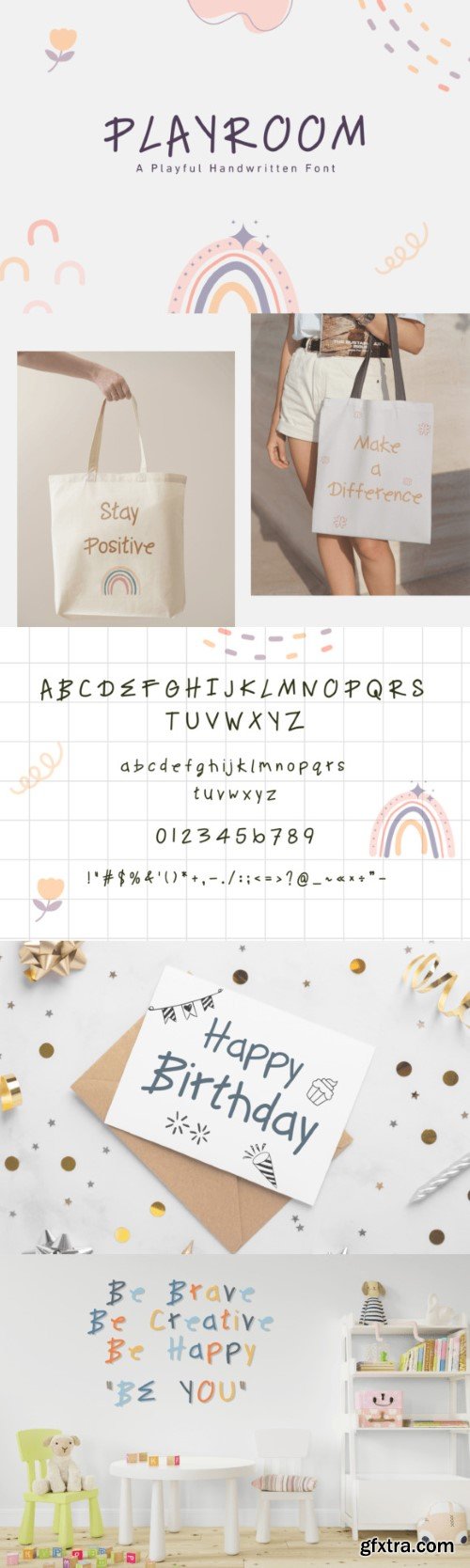
_playroom font
Playroom is a cute handwritten font perfectly suited for any designs. It will be suitable for designing t-shirts, tote bags, hats, stickers, wedding designs, logos, cards, quotes, and more! This typeface will make any creative idea stand out and look stunning!